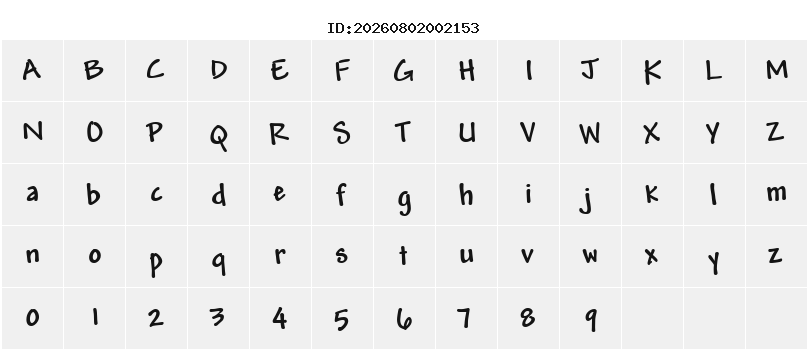
Mead Bold Preview
• Font Name: Mead Bold
• Full Font Name: Mead Bold
• PostScript Name: Mead Bold
About Mead Bold.ttf
Mead Bold.ttf is a modern, elegant sans-serif font designed for ultimate readability and visual harmony. Perfect for branding, headlines, web design, and print materials.